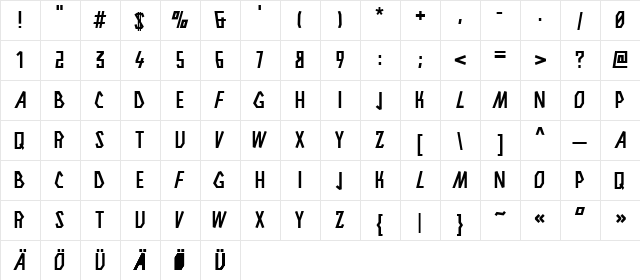
Obacht! Regular
Design Context for Obacht! Typeface
Obacht! is a composed and adaptable typeface that performs quietly and consistently across a wide range of design contexts.